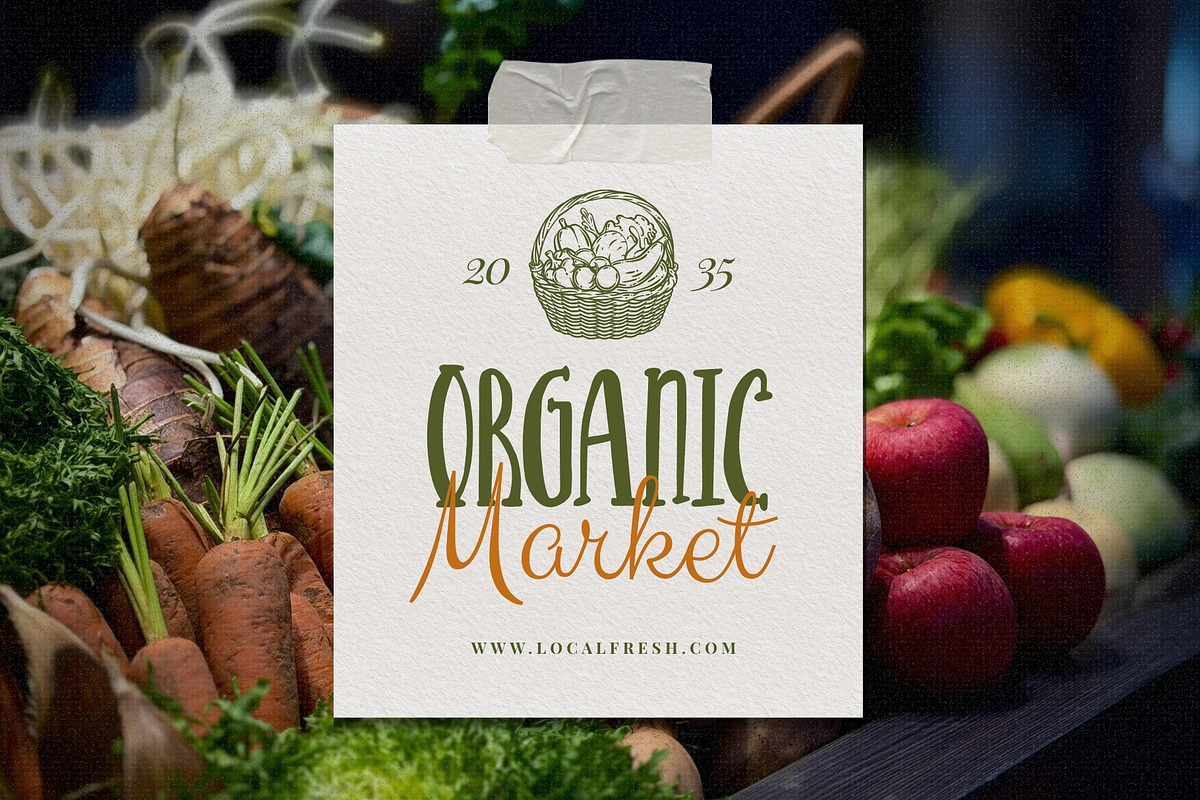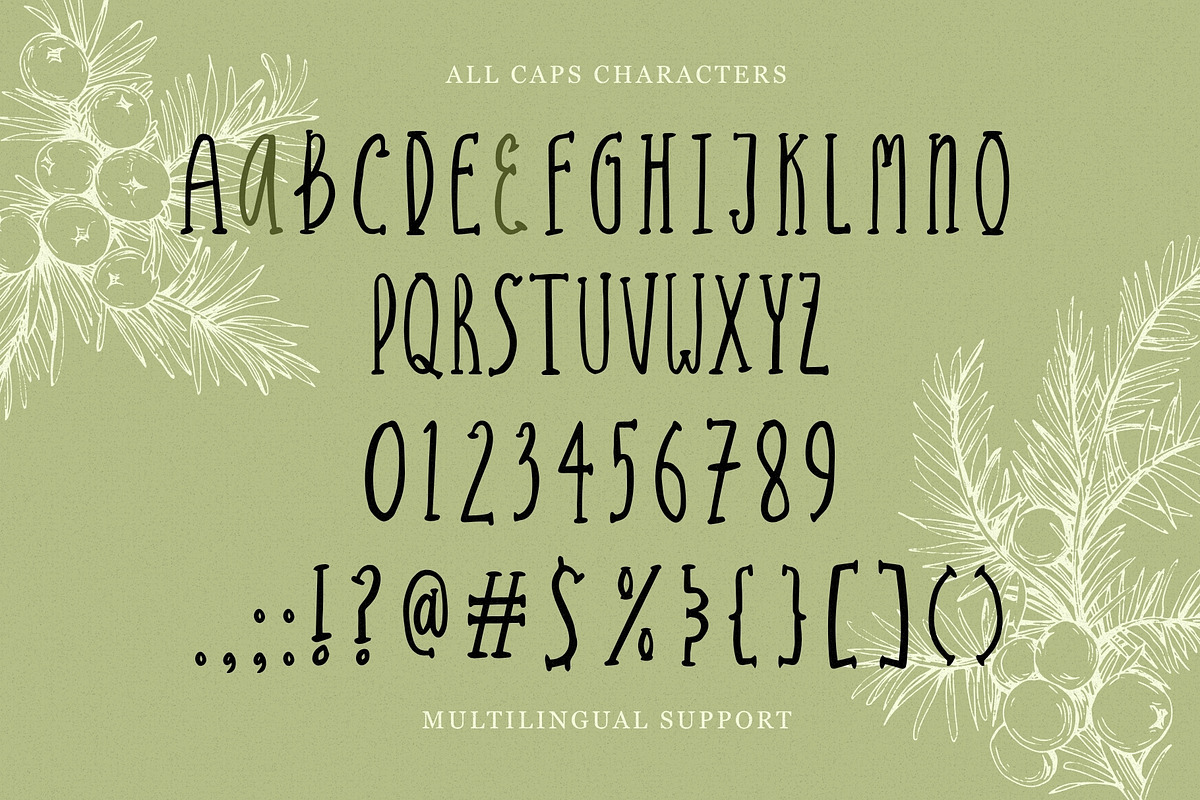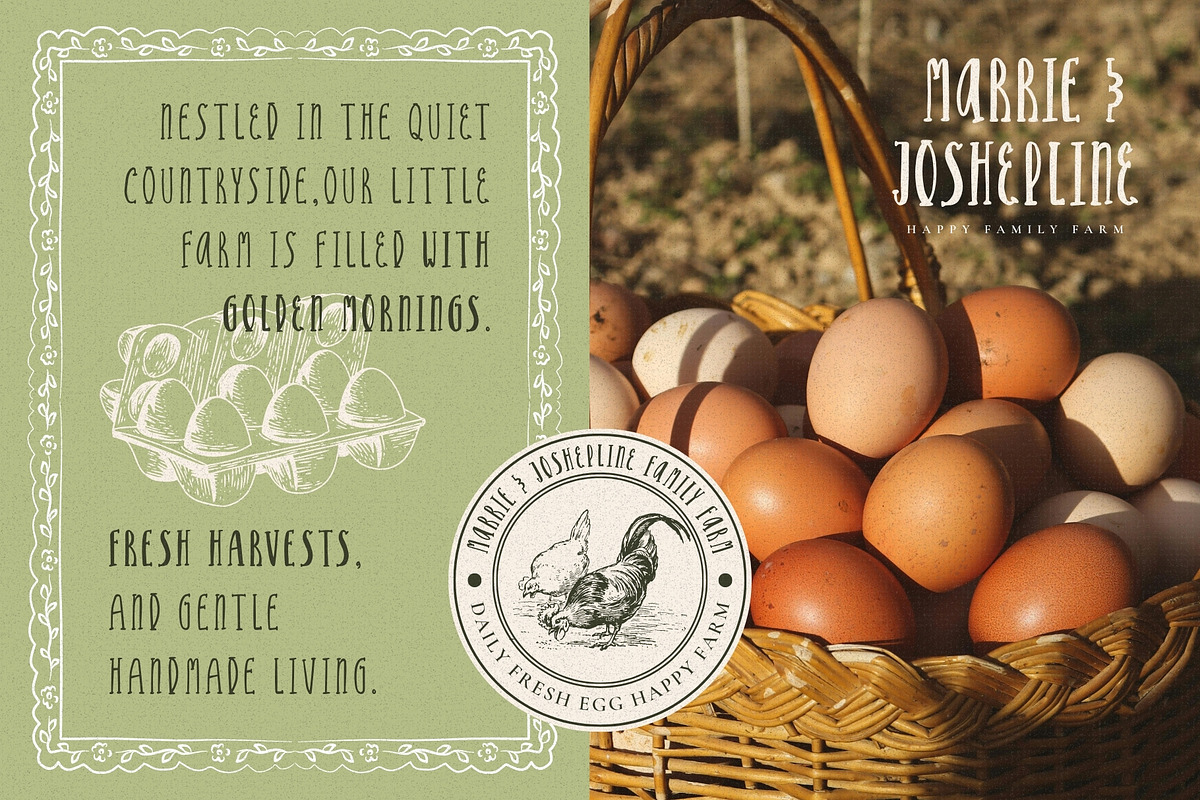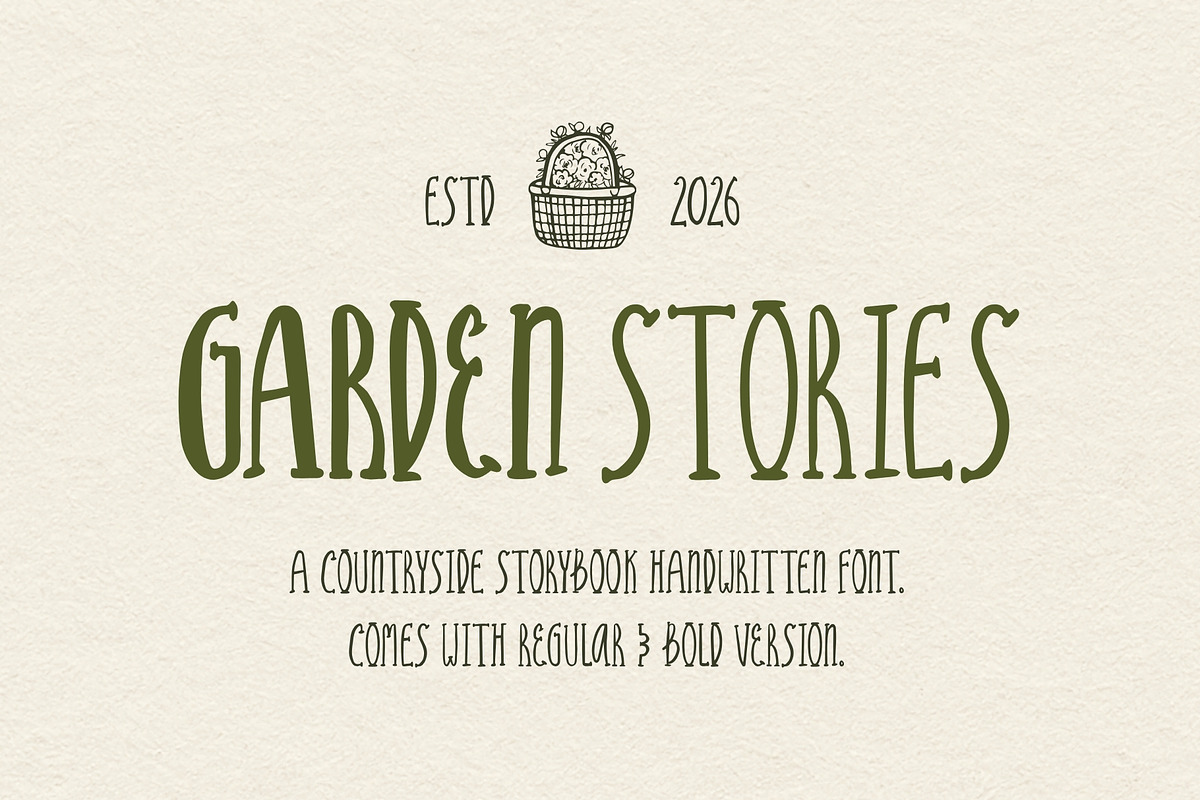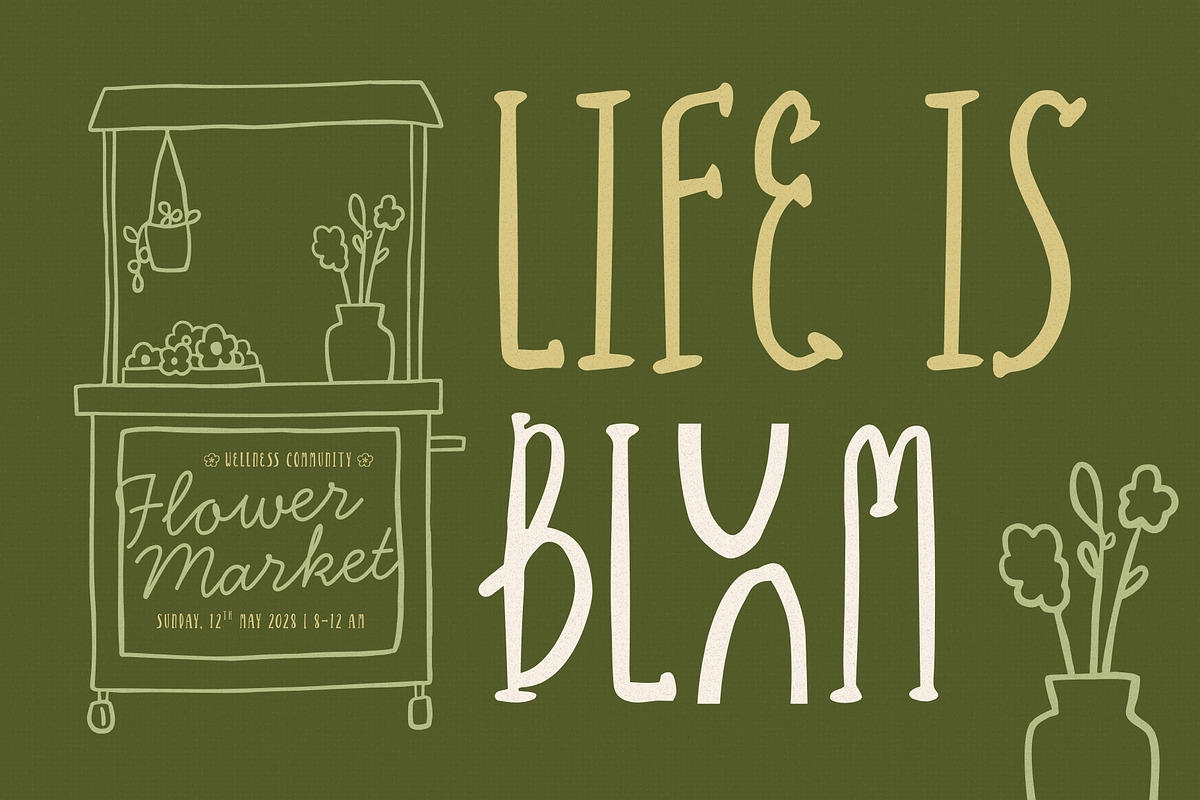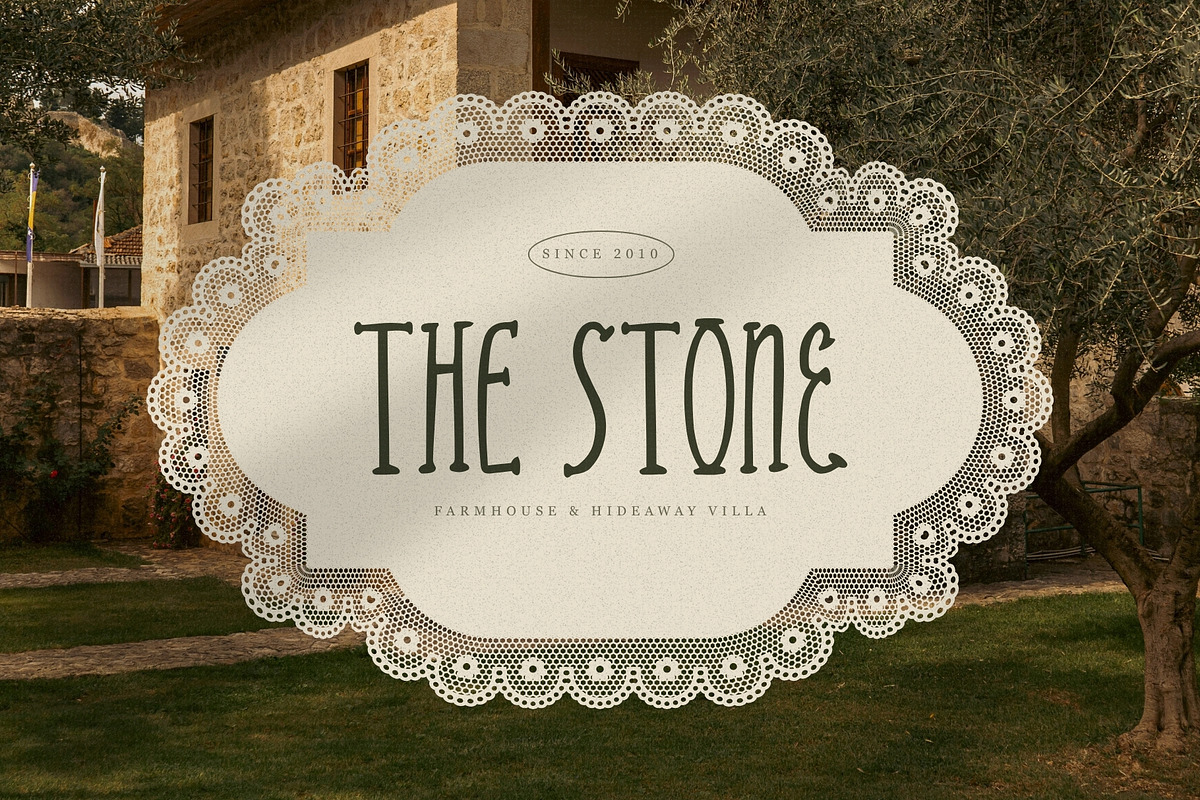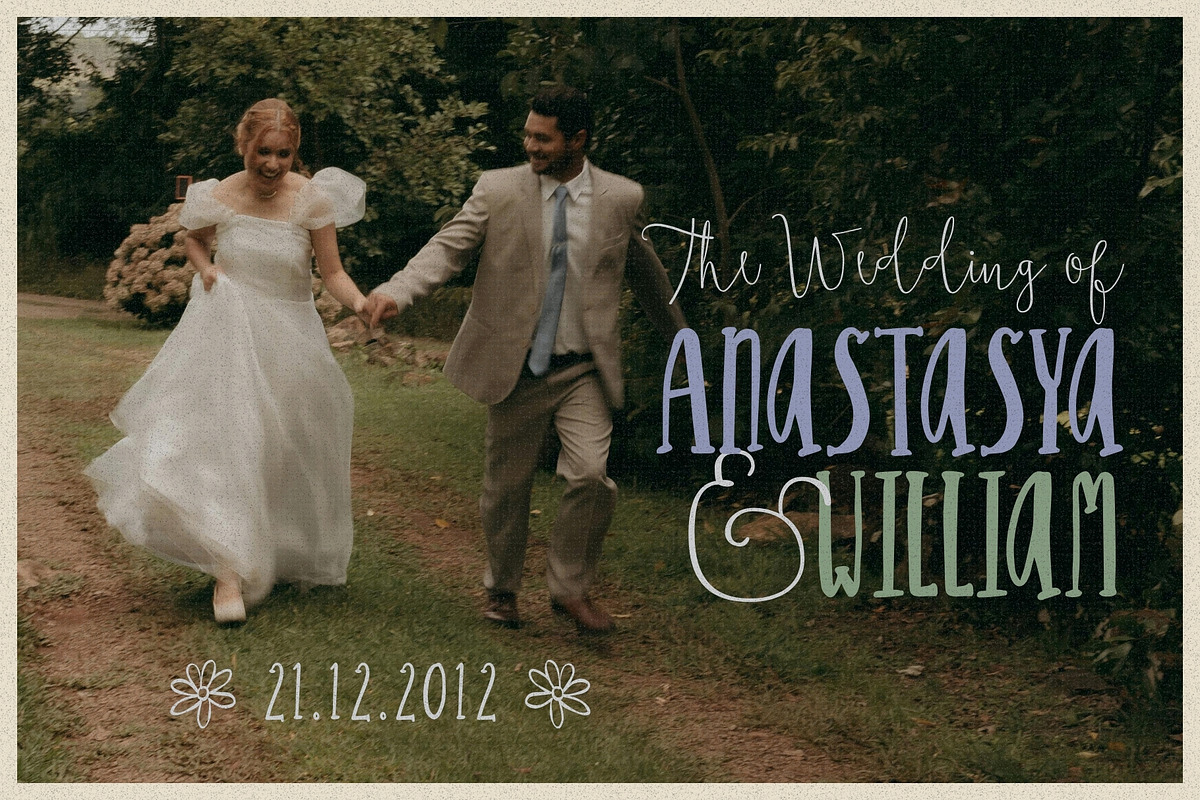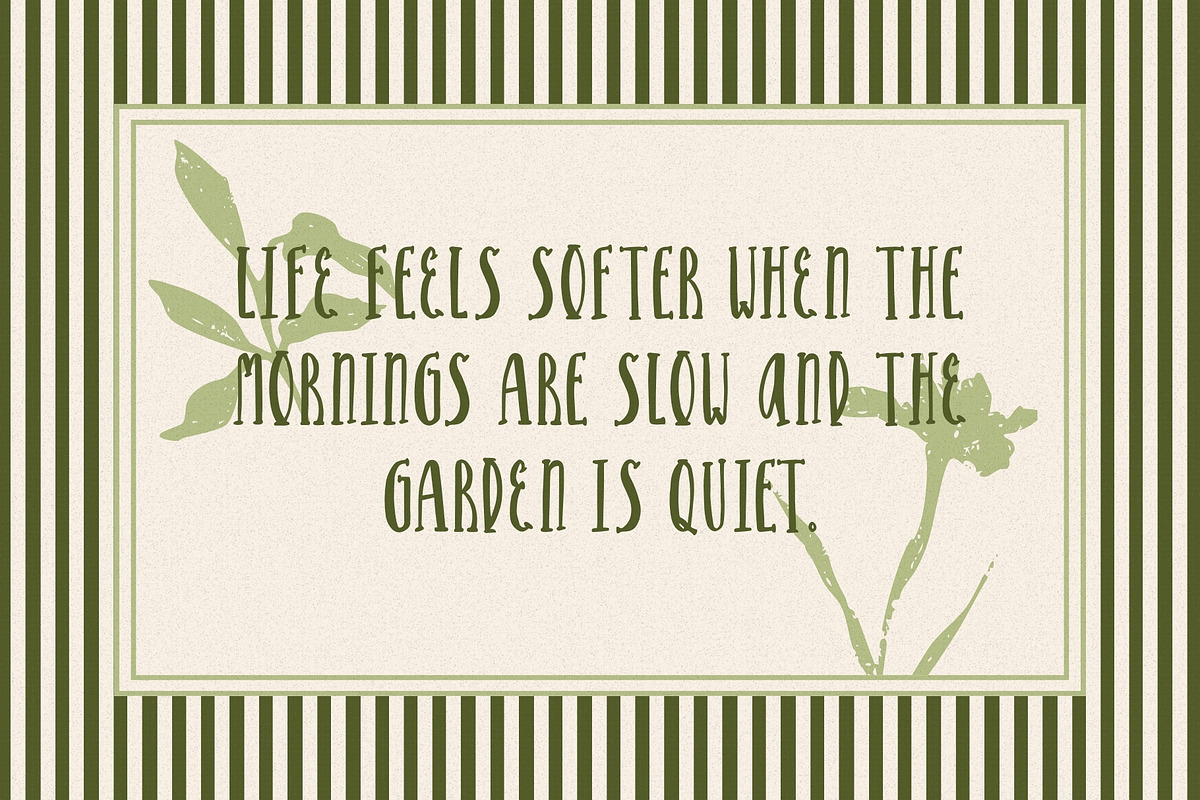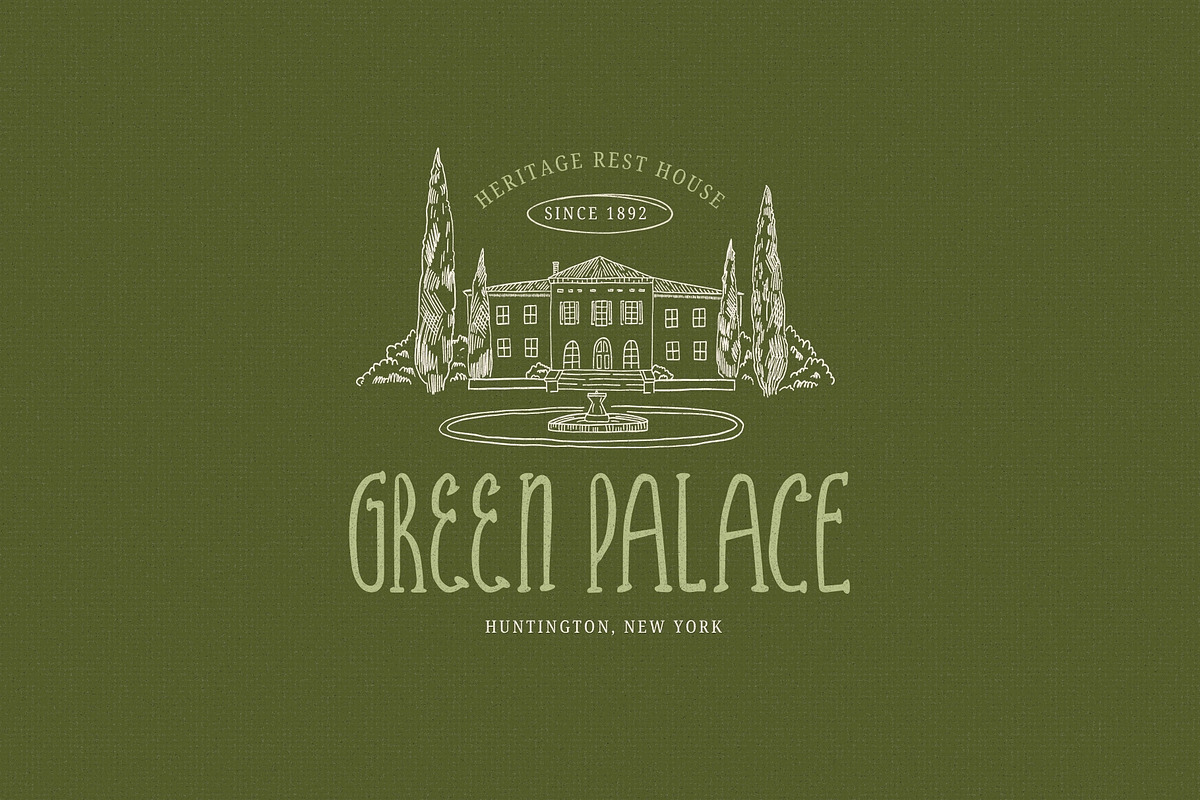
Garden Stories Cozy Storybook Font
There’s something soft and cozy about Garden Stories. The tall playful letters bring a natural handmade feel, like handwritten notes from a tiny countryside cottage. With regular and bold styles included, this font is perfect for farmhouse branding, bakery packaging, children’s books, café menus, garden labels, and creative projects that want to feel warm, homemade, and gently nostalgic.